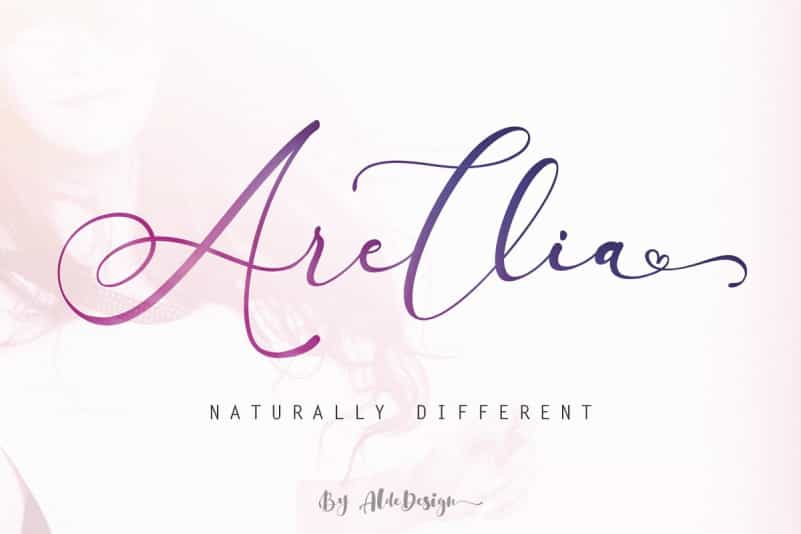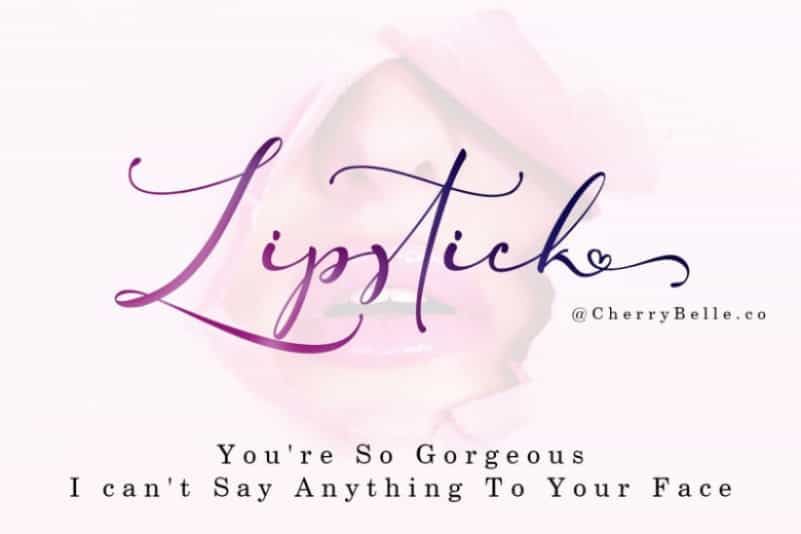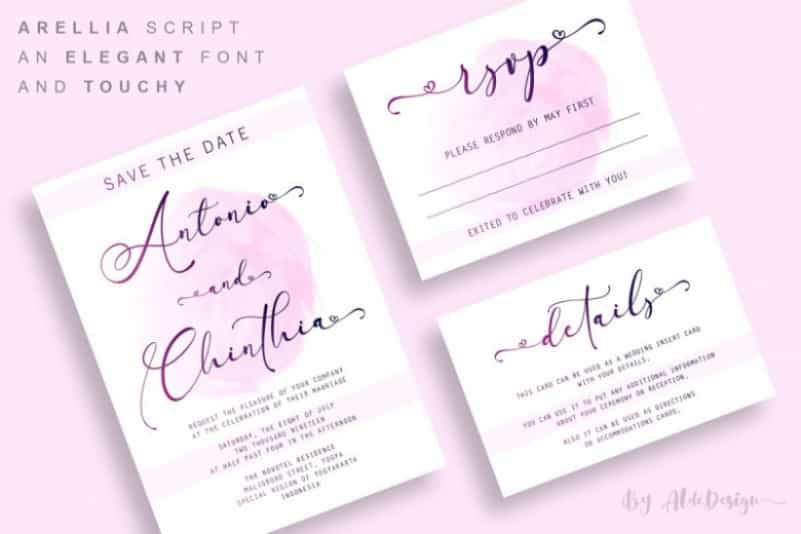
Introduce A Luxury Calligraphy Font by Aldedesign, Arellia Font. Arellia Script Font – a stylish script handwritten font with a varying baseline, a smooth line, modern, and with a depth love. pinMode for font is handcrafted and inspired by ballpoint pen it’ll make your design look great. It’s designed and shared by Aldedesign. Wildhart perfect for any design project as invitation, logo, print design, headline design, and more.